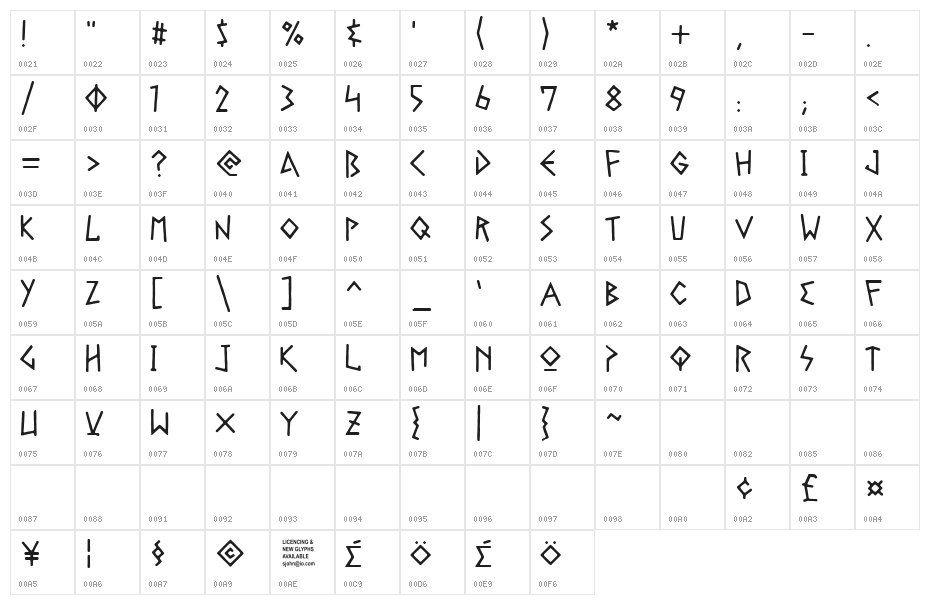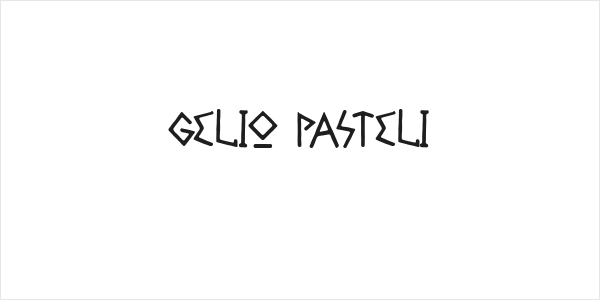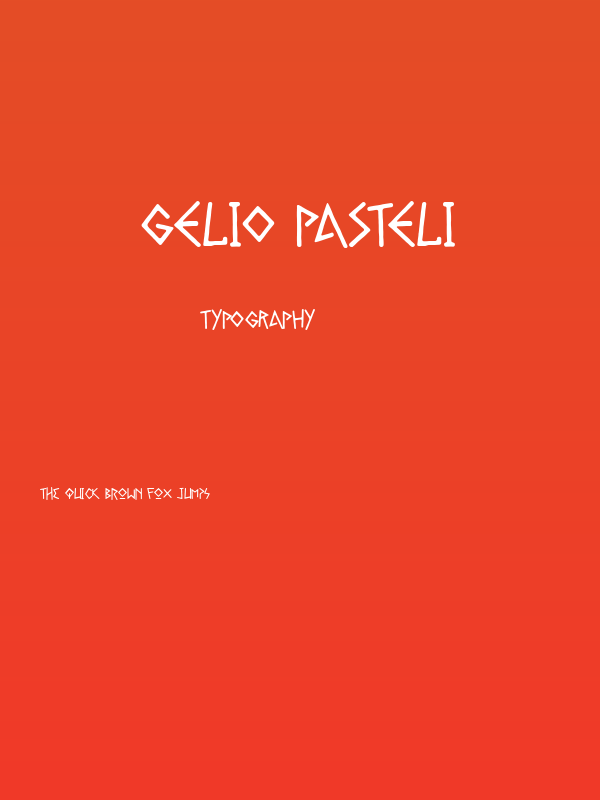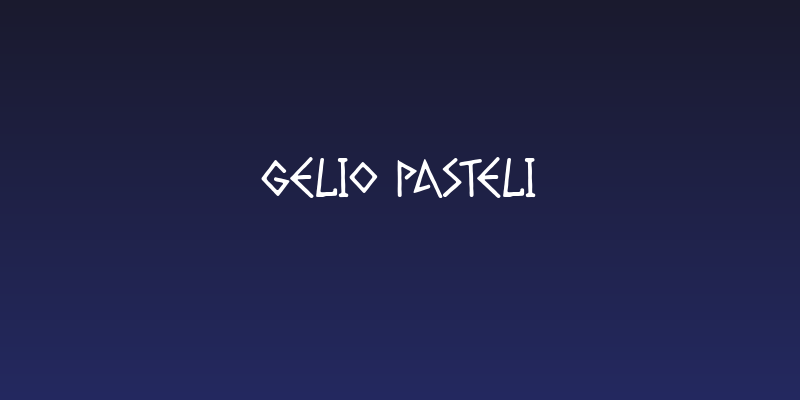
Gelio Pasteli Font
Gelio Pasteli Description
This font features a unique and playful design with a hand-drawn aesthetic. The characters are bold and slightly irregular, giving them a whimsical and artistic feel. The uppercase and lowercase letters maintain a consistent style, with angular lines and a slightly rough texture. The numbers and special characters follow the same design principles, ensuring a cohesive look across all elements. This font's distinct style makes it stand out, offering a creative and informal vibe that can add personality to any project.
| Overall Style | Artistic, Whimsical |
| Use Case | Headlines, Posters, Creative Branding |
| Proposed Projects | Ideal for creative projects such as children's books, posters, greeting cards, and artistic branding. |